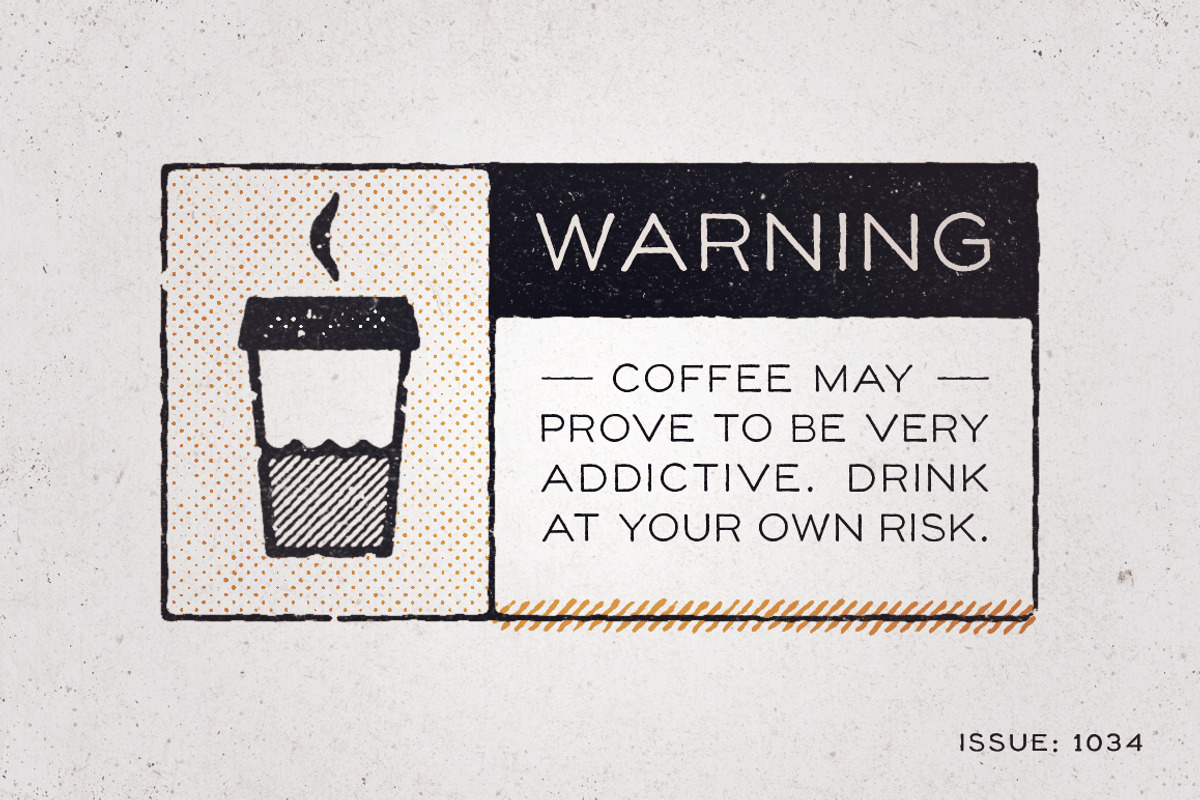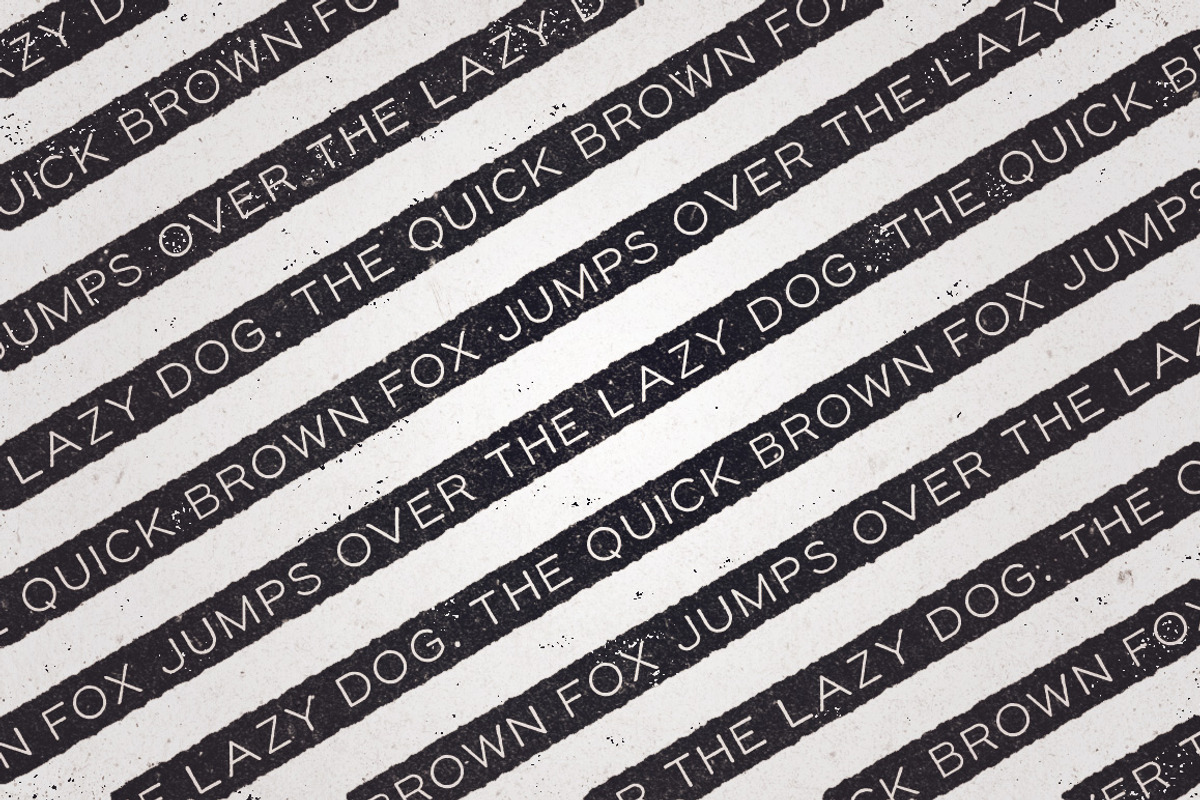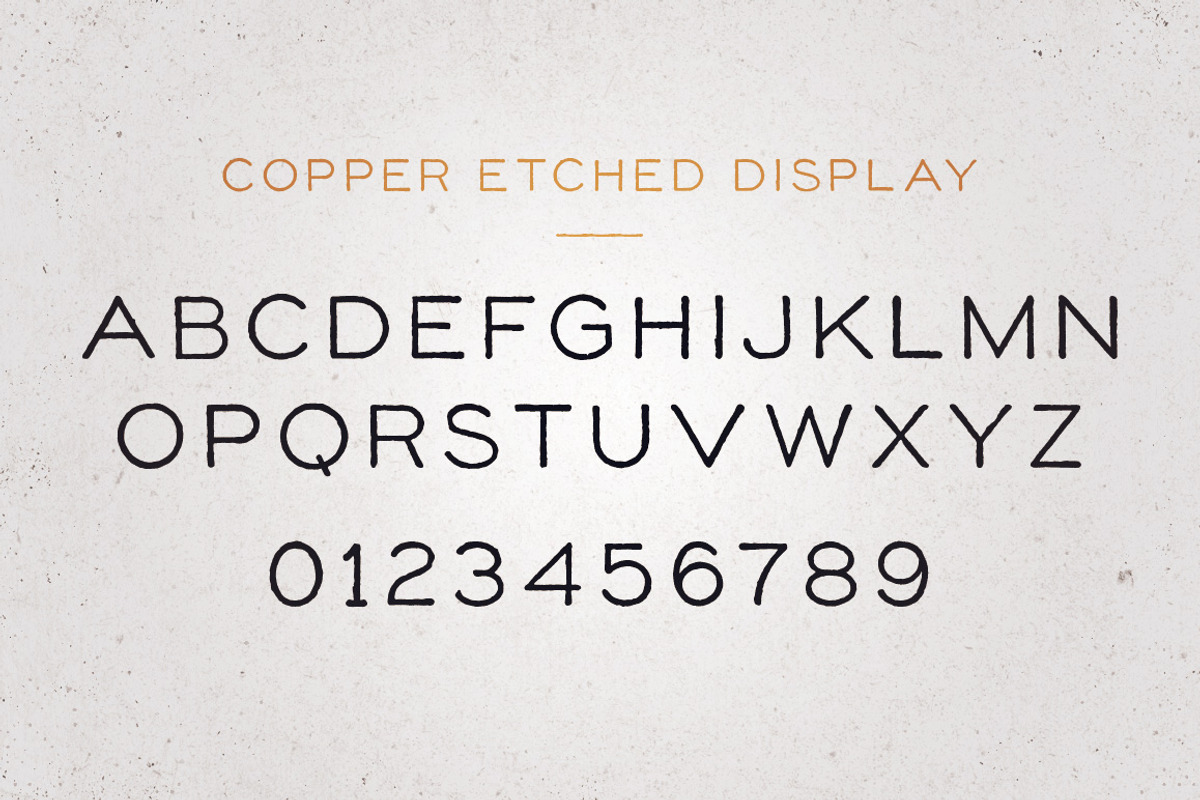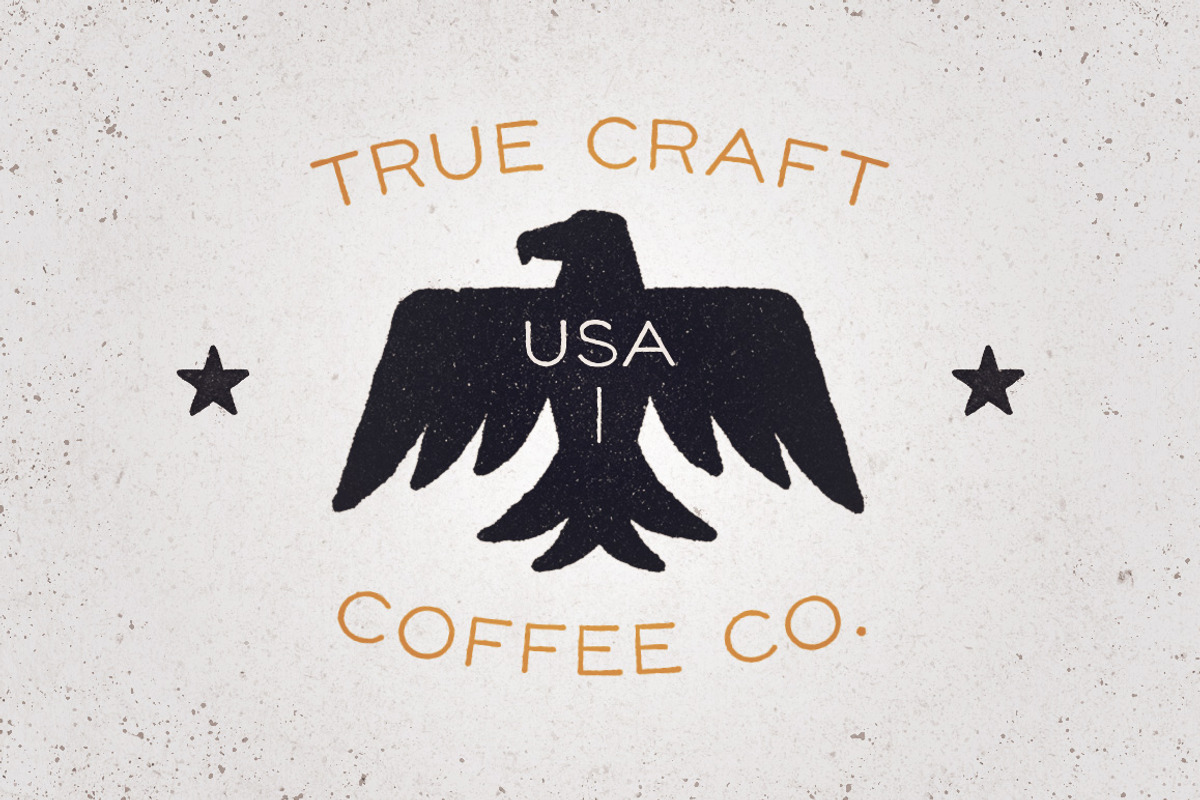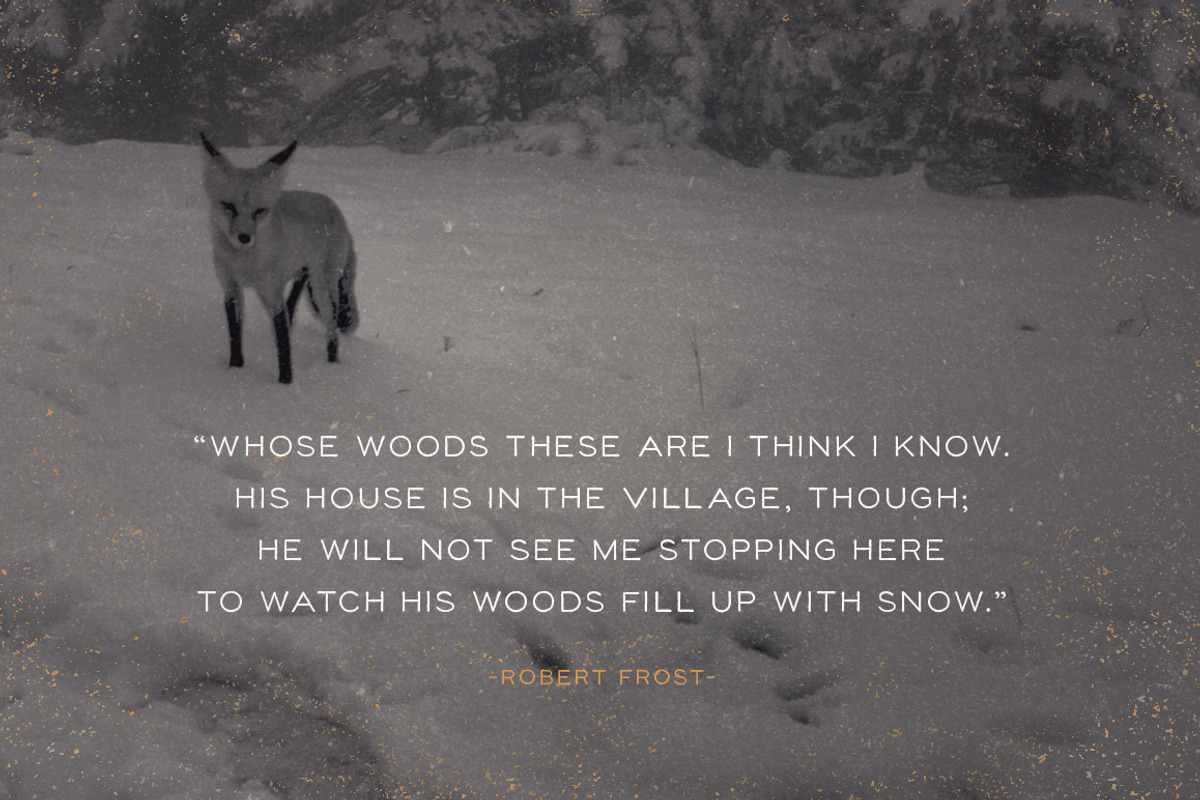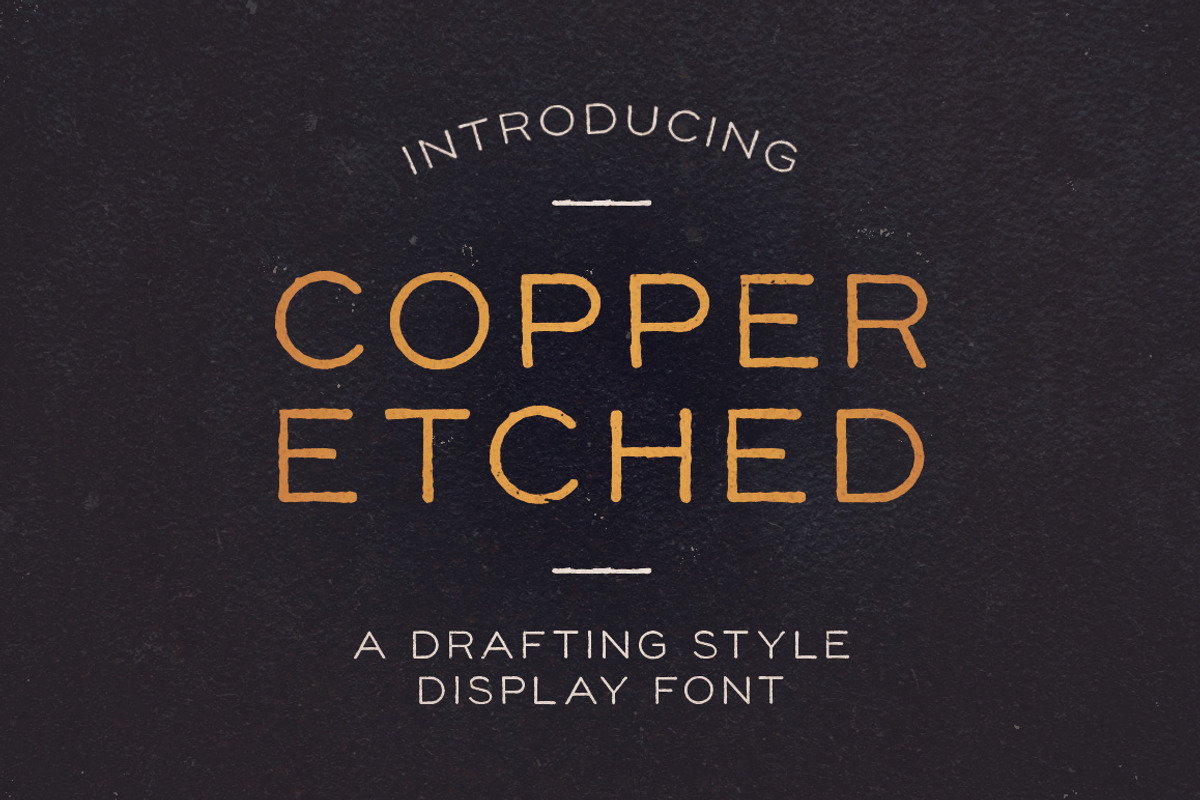
Copper Etched Display Font
Copper Etched Display is a no nonsense, straight to the point, authentically old font. It's perfect for pairing with your logo and branding work as a secondary typeface. It's a geometric sans serif font based off the handwriting found on an old copper plate etching. I carefully recreated the engraver's original characters while expanding the set with my own handwriting to build the final font. The font itself has a rough edge that will help give your work that handmade feel.
It's recreated from turn of the century etchings
It's a display font that is uppercase only